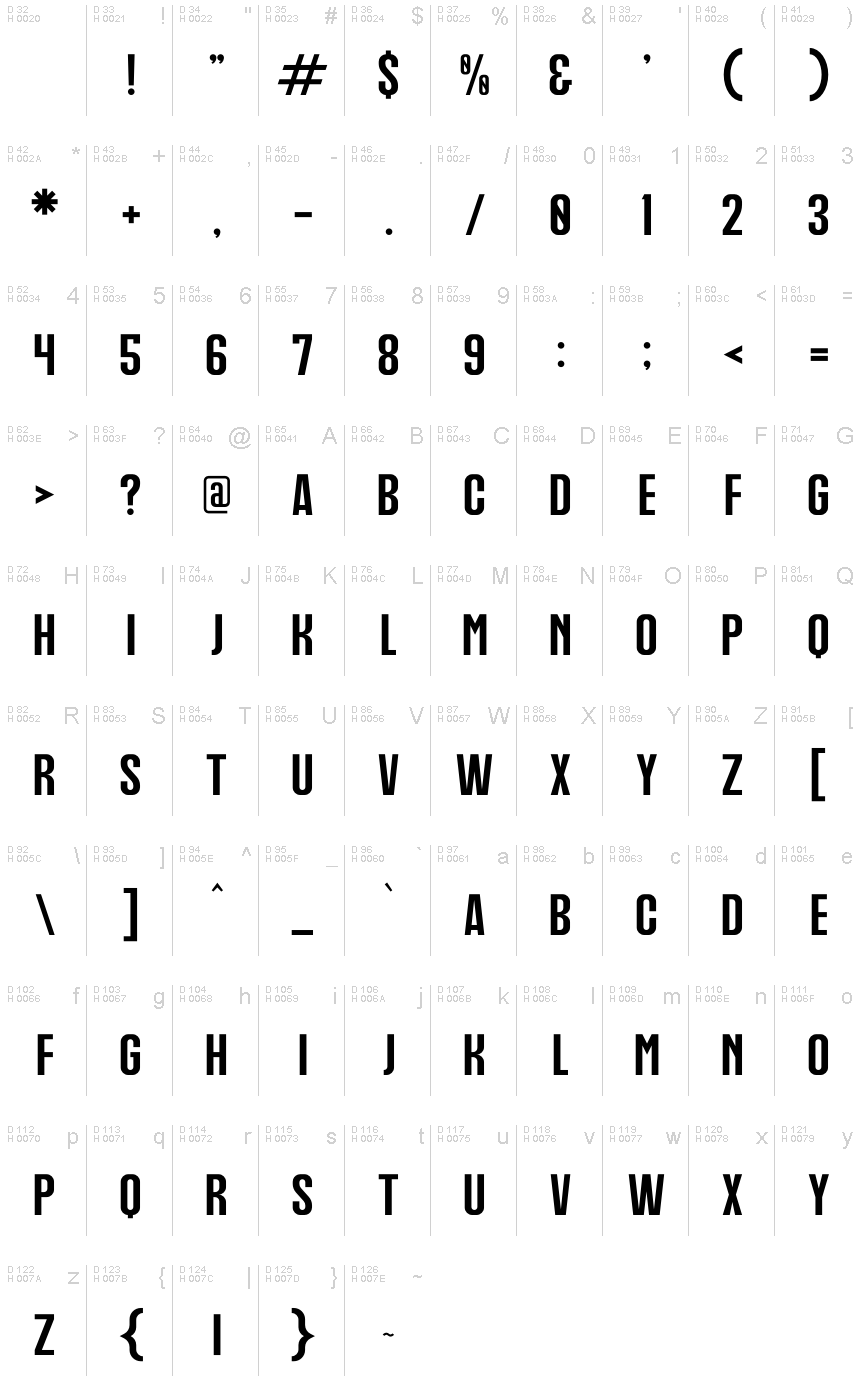
TACKERLEN
Tackerlen, a creation of Storytype Studio, is a captivating sans-serif font that exudes a bold, modern aesthetic. Its condensed width lends a striking, sleek appearance, while the sharp, geometric letterforms convey a sense of precision and authority. The overall design strikes a delicate balance between functionality and visual intrigue, making Tackerlen a versatile choice for a wide range of applications.
Tackerlen's unique characteristics make it a compelling option for projects that demand a strong, impactful visual presence. Its condensed nature allows for efficient use of space, making it well-suited for headlines, logotypes, and display typography. The font's clean, minimalist style can lend a sense of sophistication and professionalism to branding, advertising, and editorial designs.